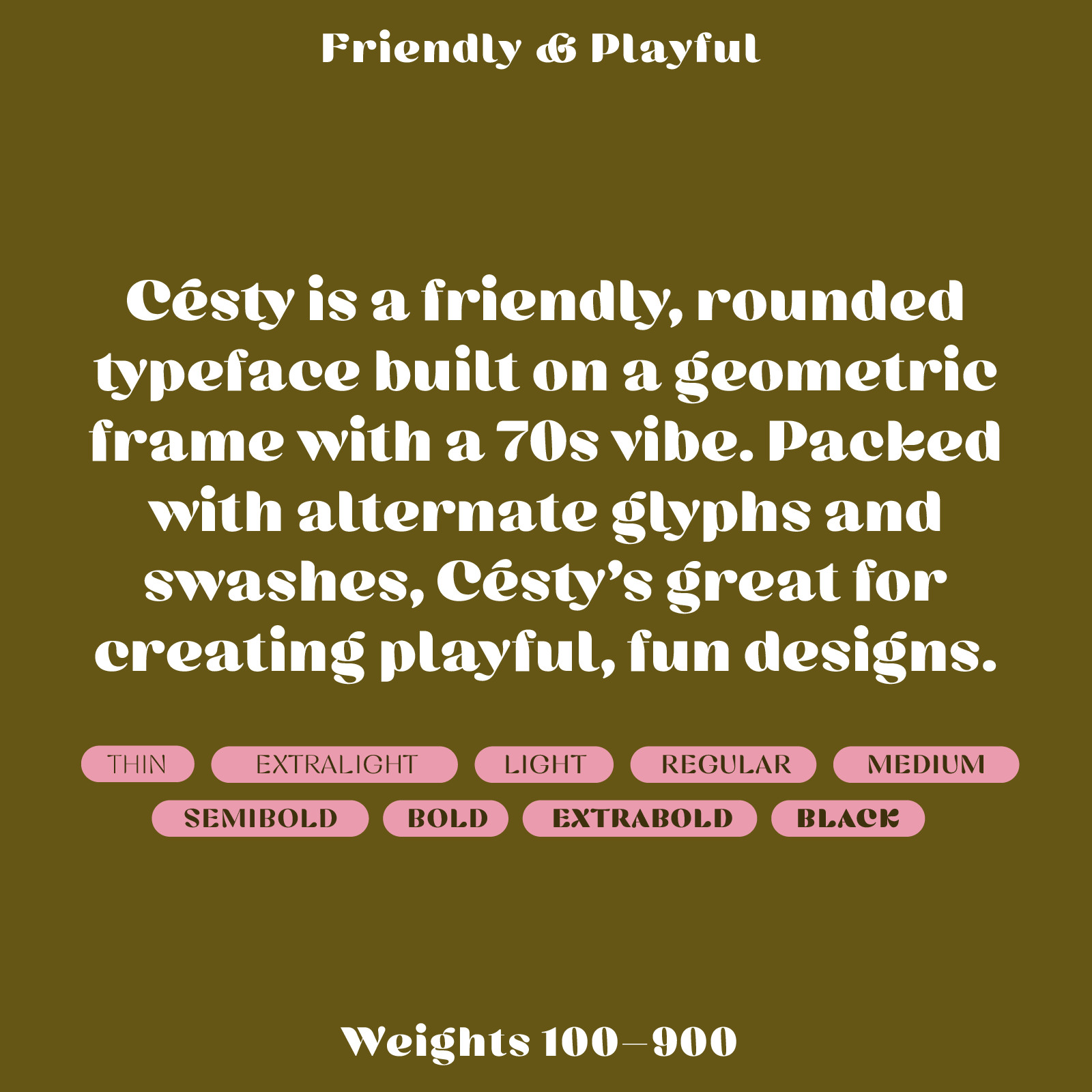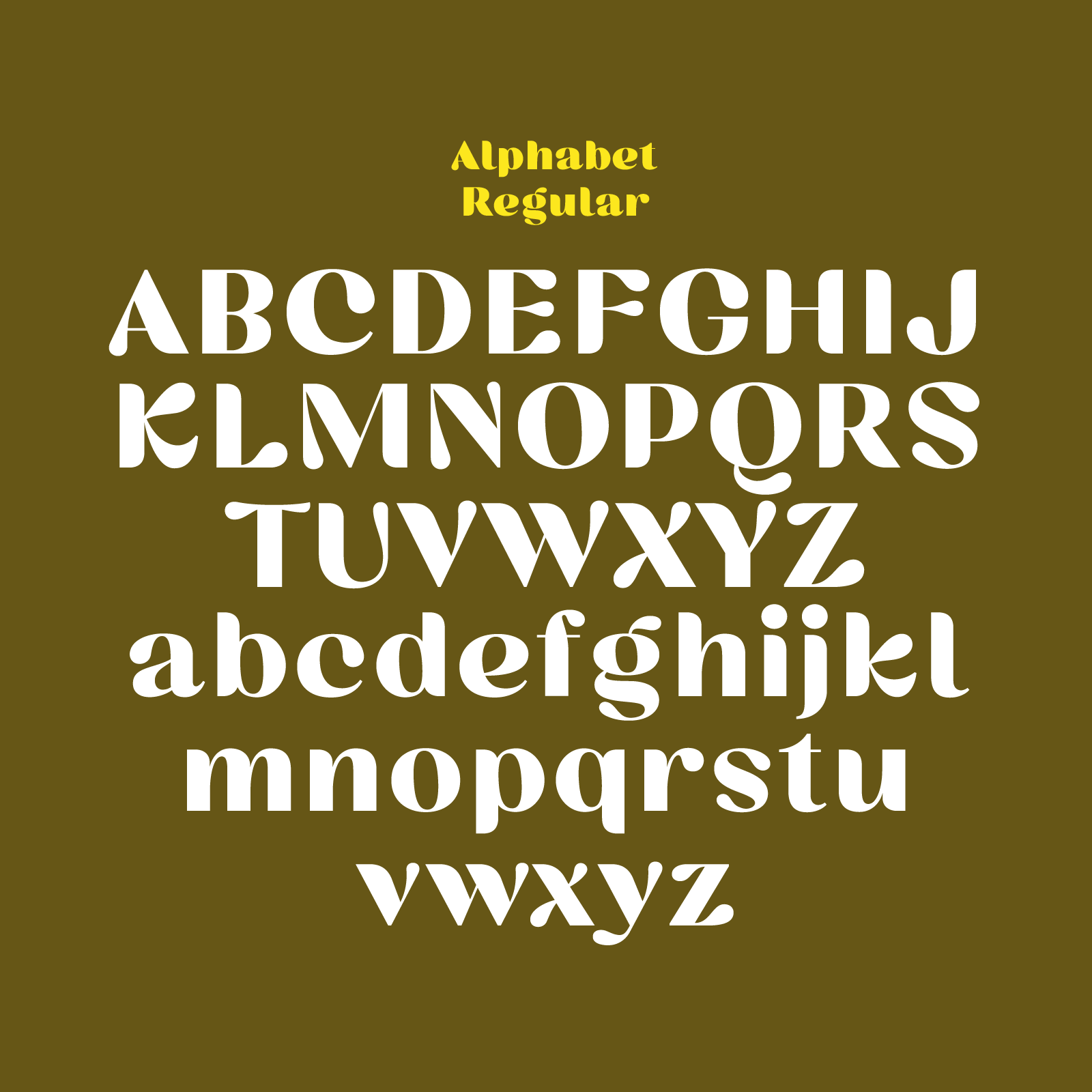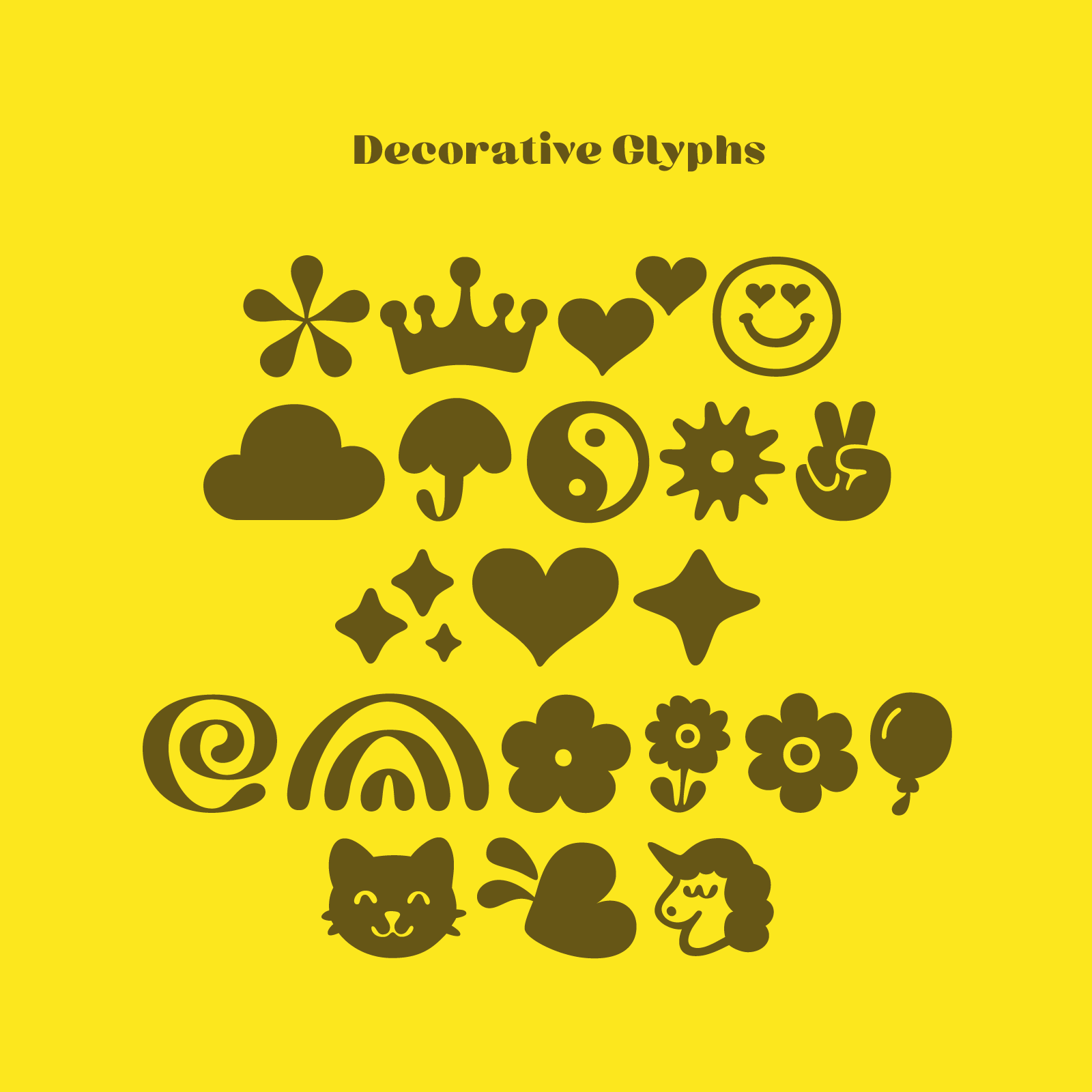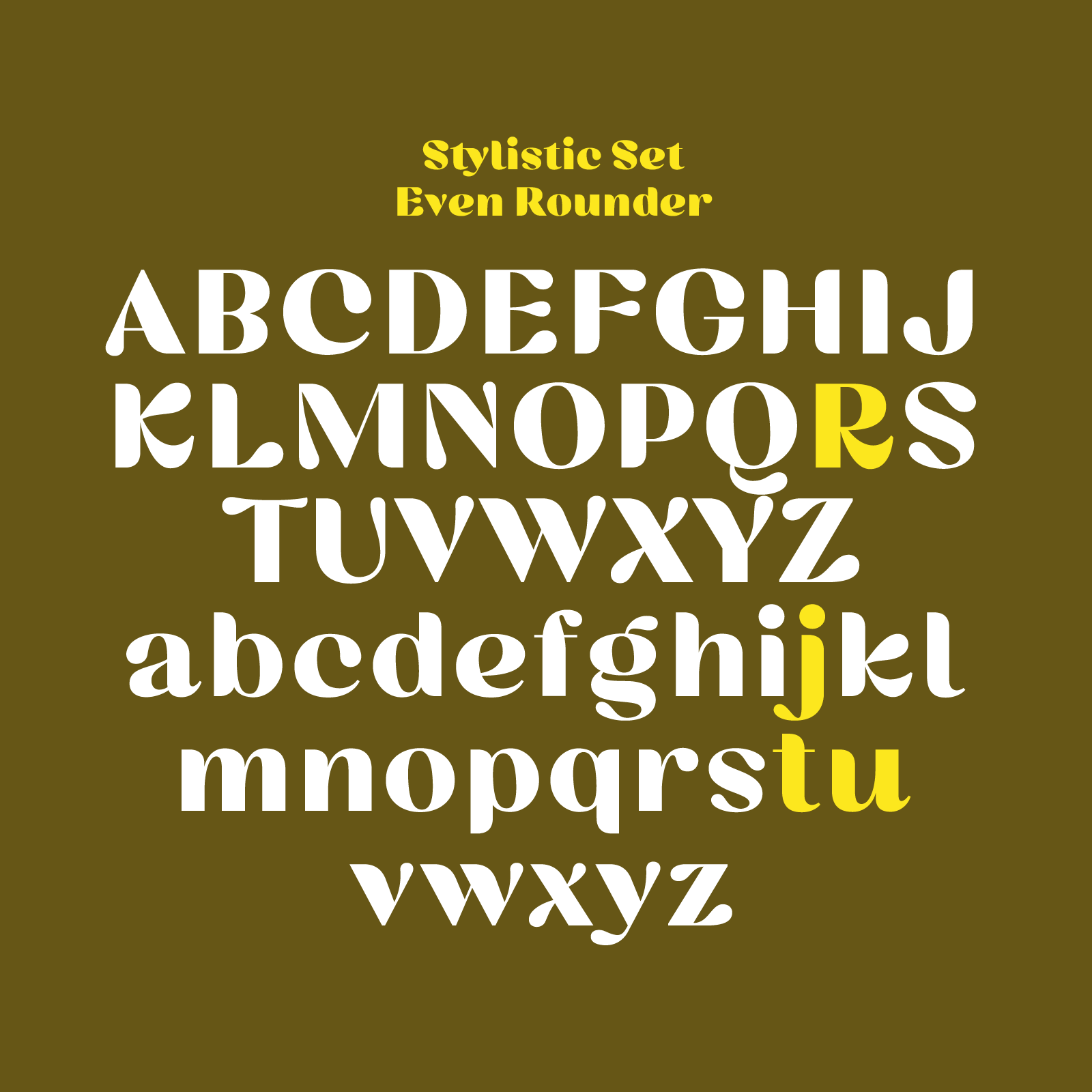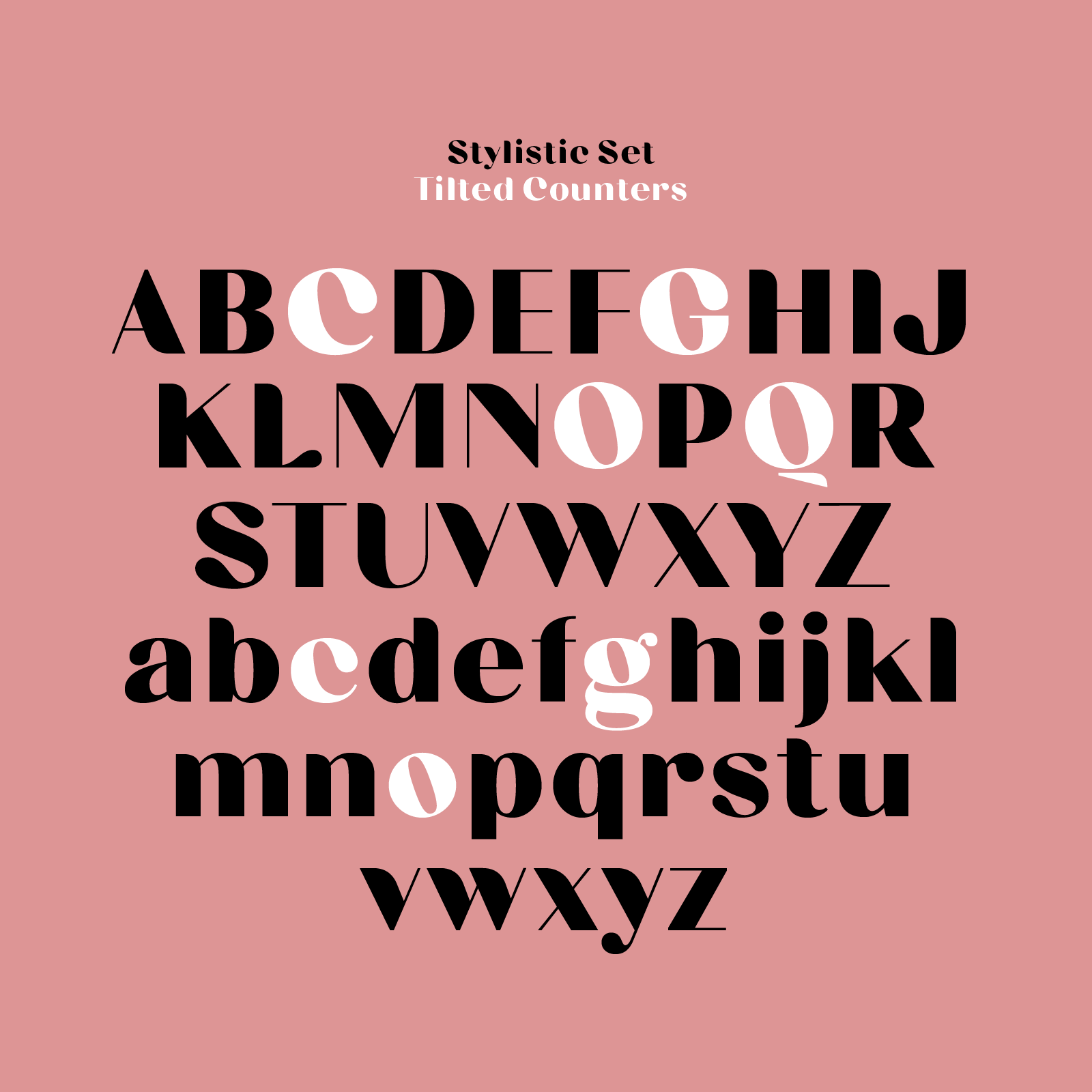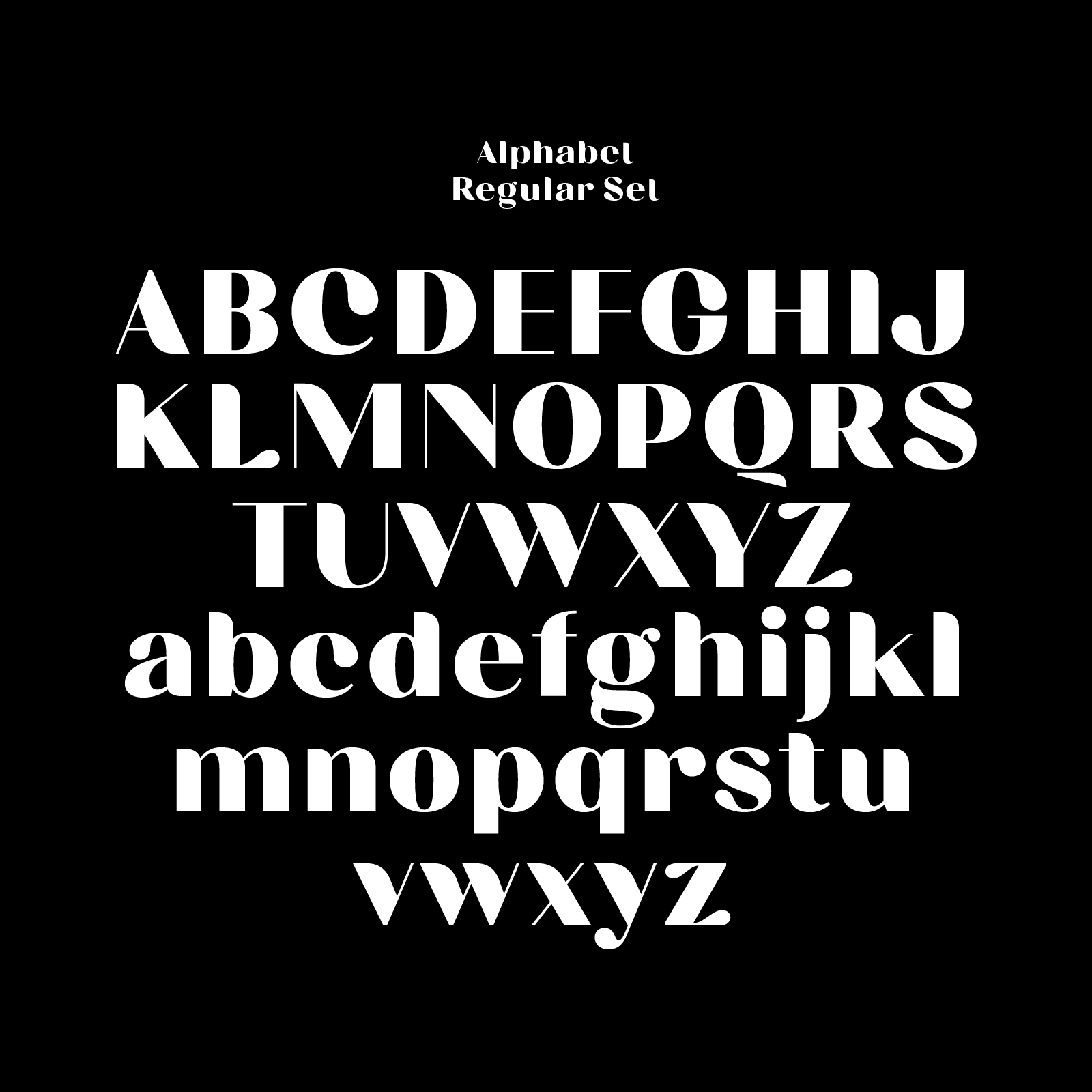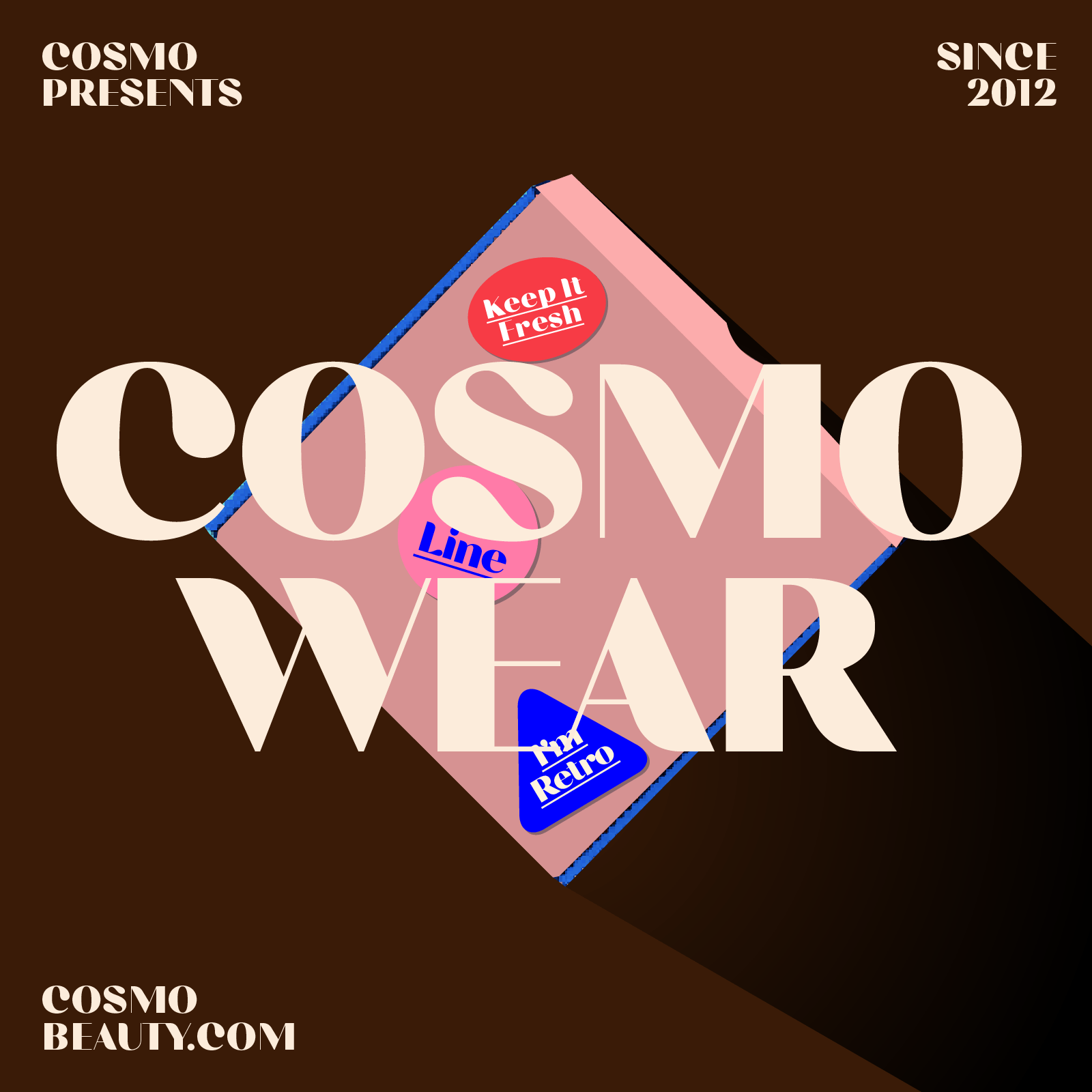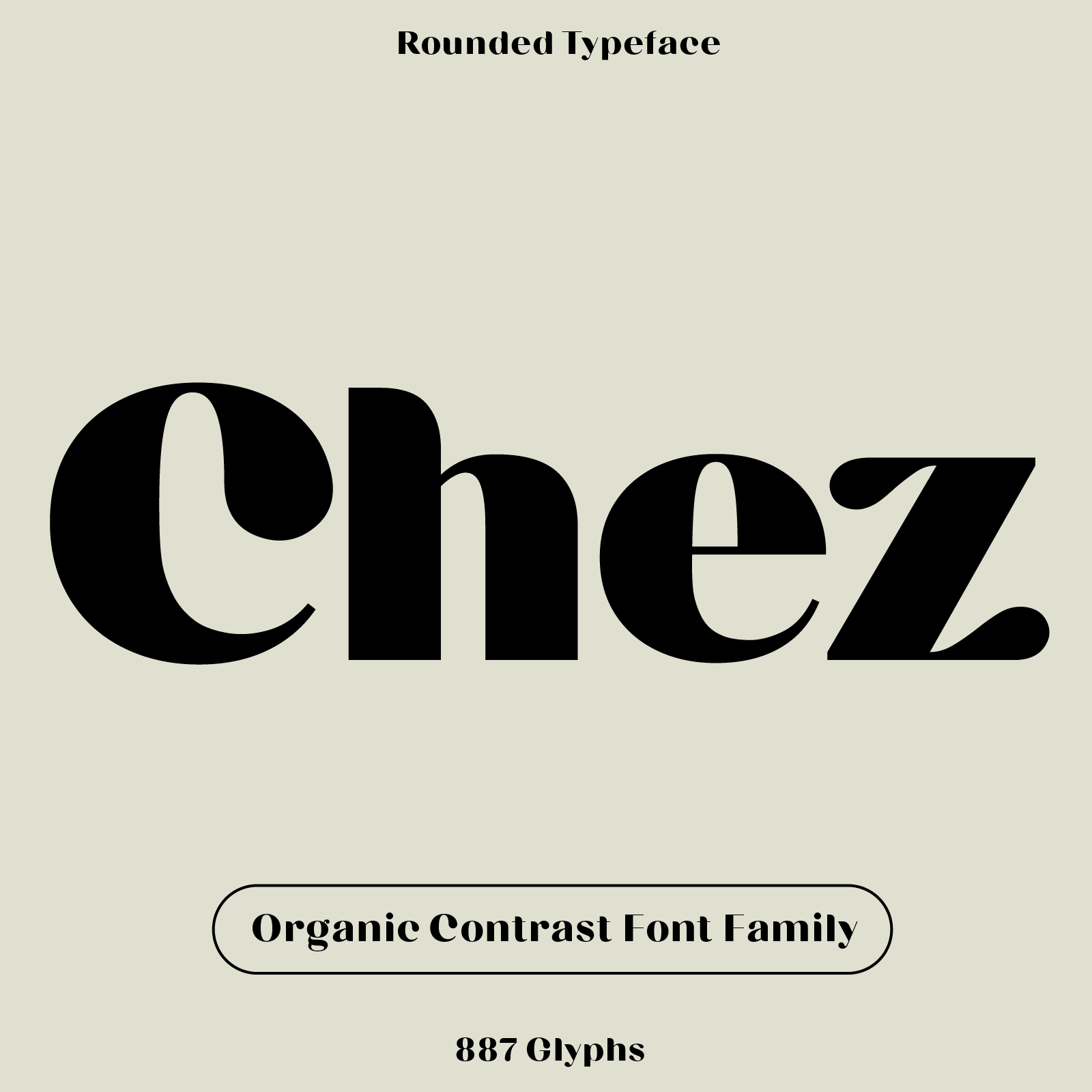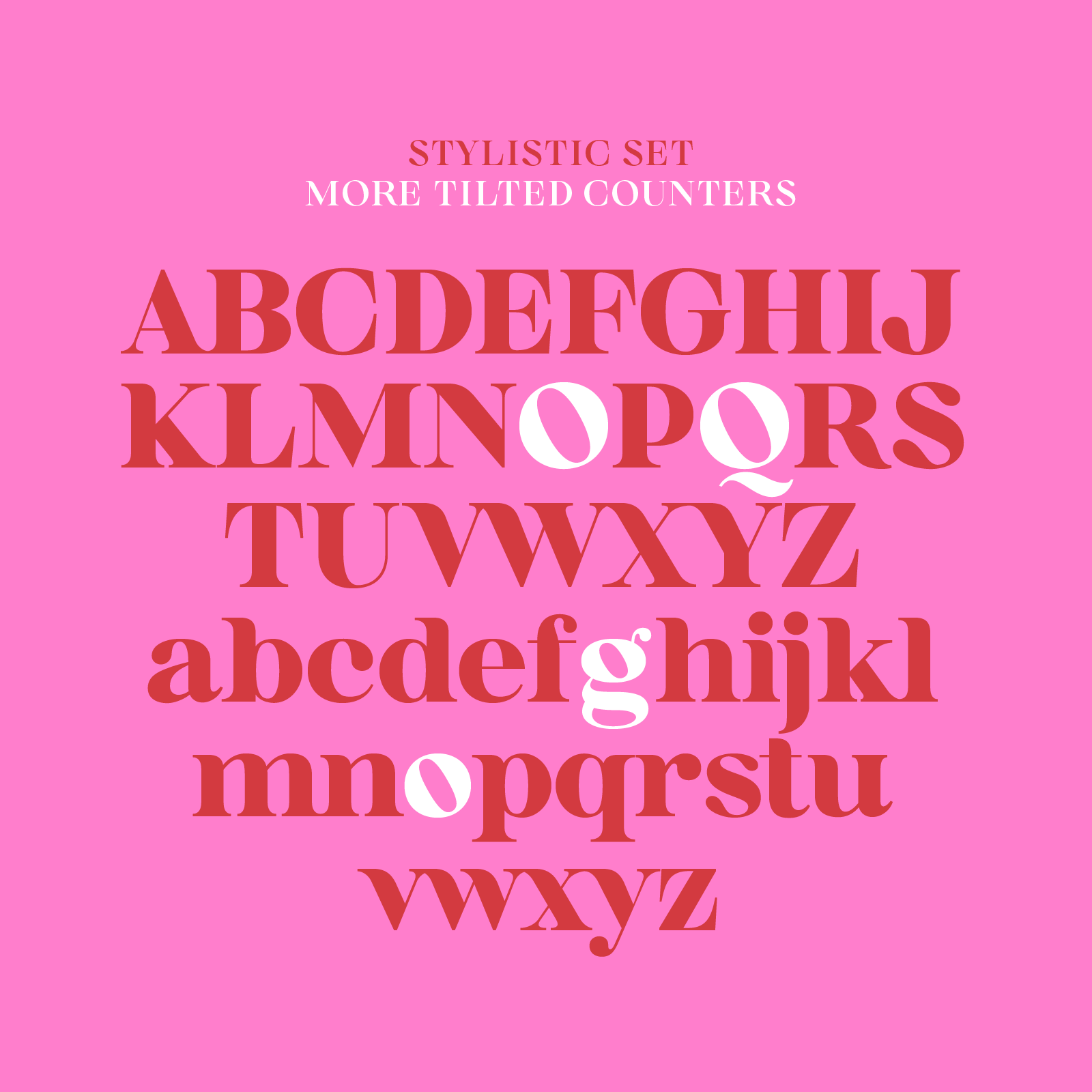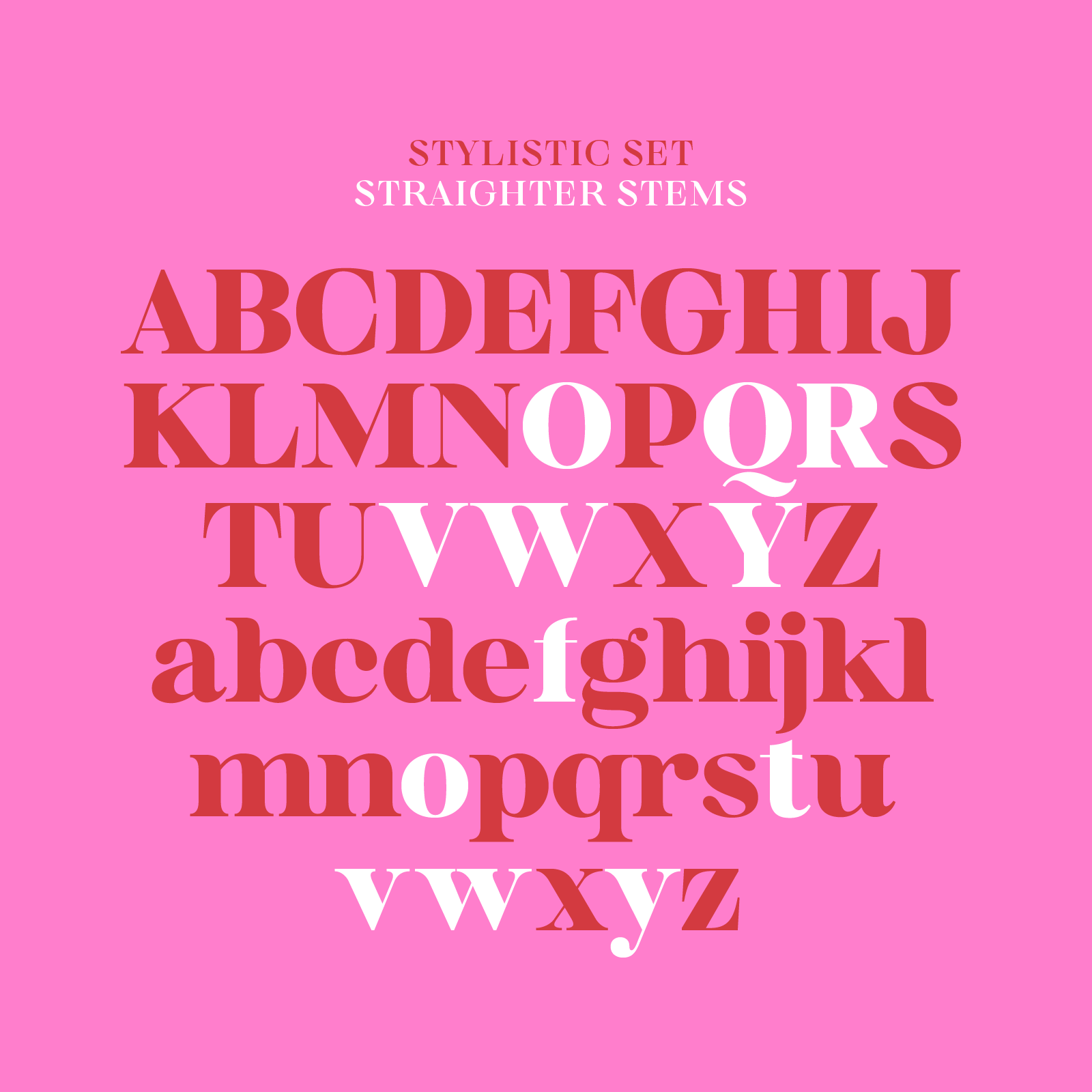
Warm Contrast Font Collection
A complete branding system in three fonts.
Bauhaus Soft, Chez, and Cesty share the same warm, organic personality—high contrast, rounded forms, and modern elegance. Together, they create a cohesive visual identity perfect for beauty, food, wellness, and lifestyle brands.
Bauhaus Soft — Elegant geometric serif with rounded endings
Chez — High-contrast rounded sans-serif with bubble terminals
Cesty — Swashy 70s-inspired script with playful sophistication